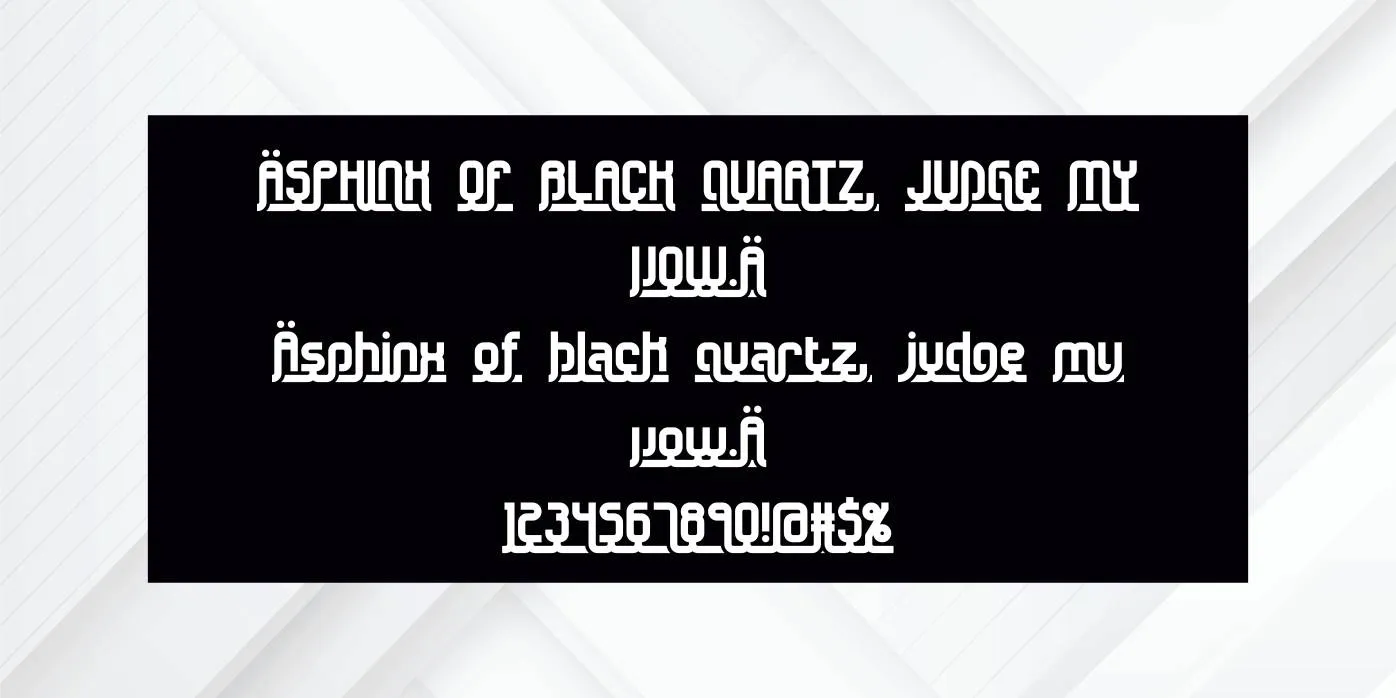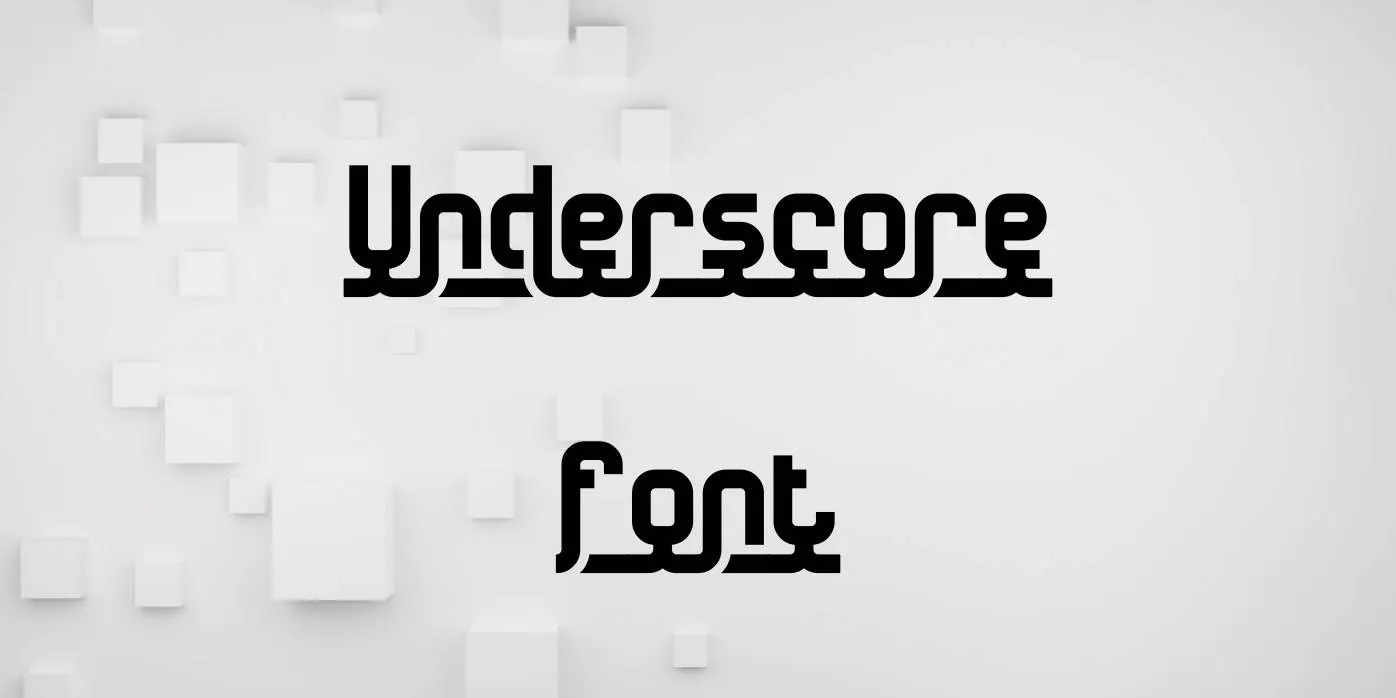
Underscore Font
You are going to read about the techno type of font. Underscore font is a techno type of font. The characters of this typeface are stylish. There is a symbol in the start and end of the line with two dots placed above the symbol.
Ænigma is the developer of this typeface. There are 206 amazing and stunning glyphs for this typeface. This texture was developed in 2004. There are 2 styles for this typeface.